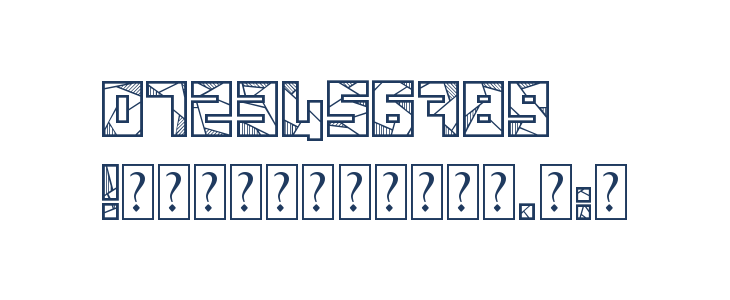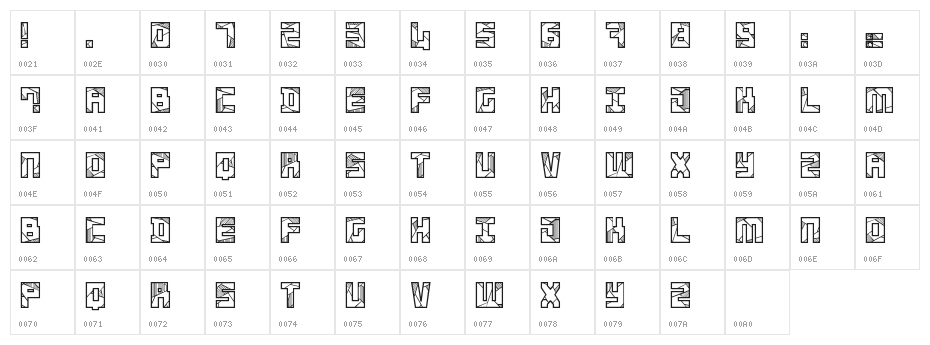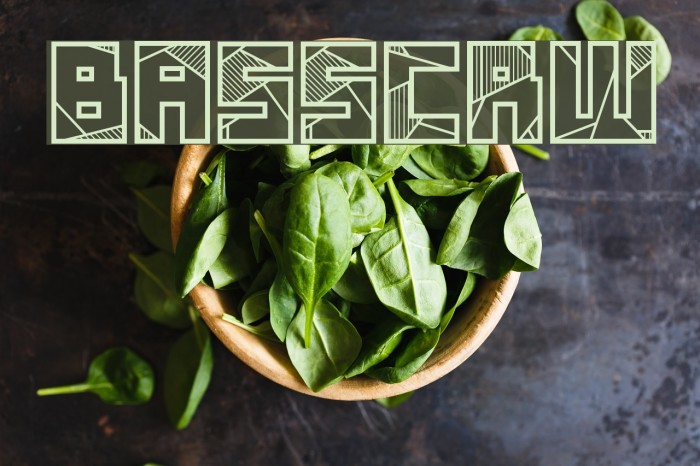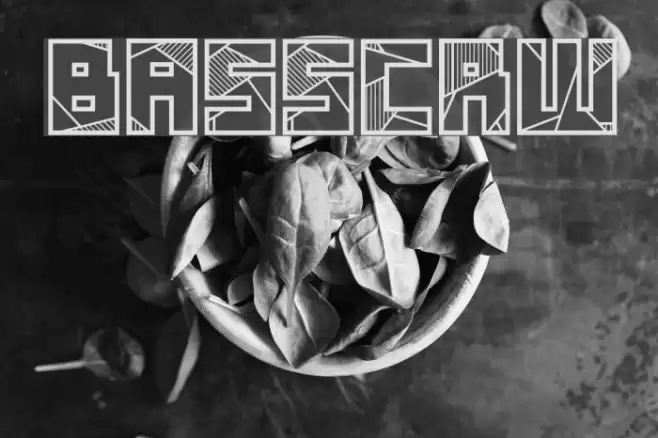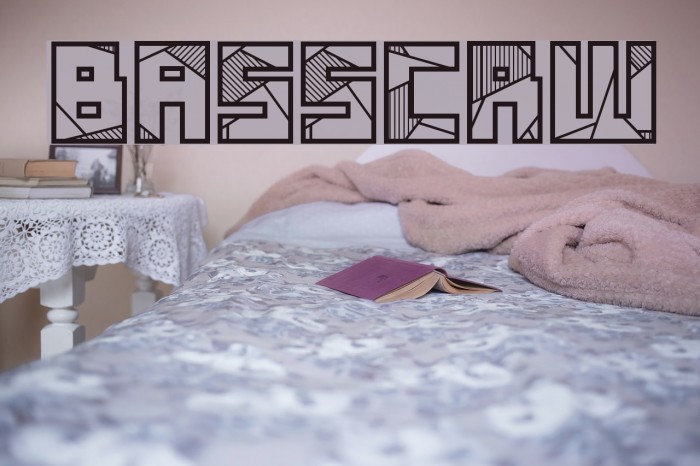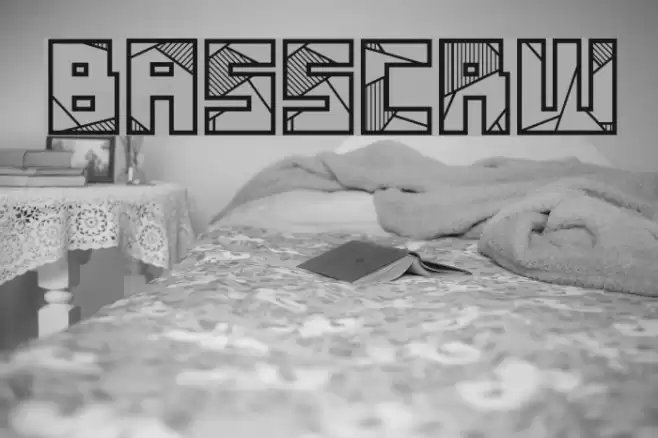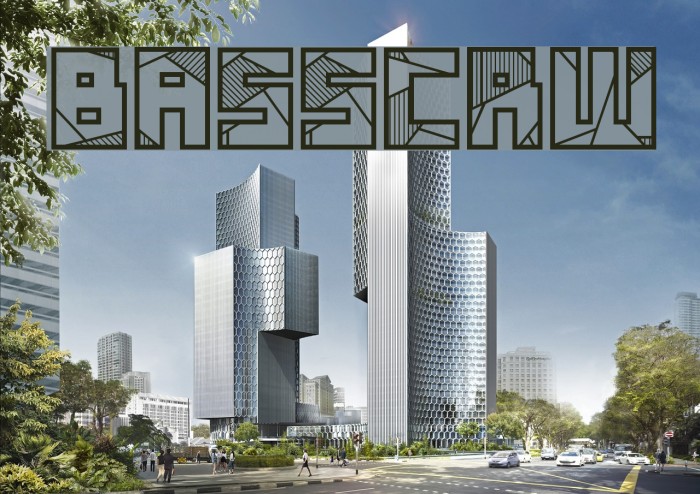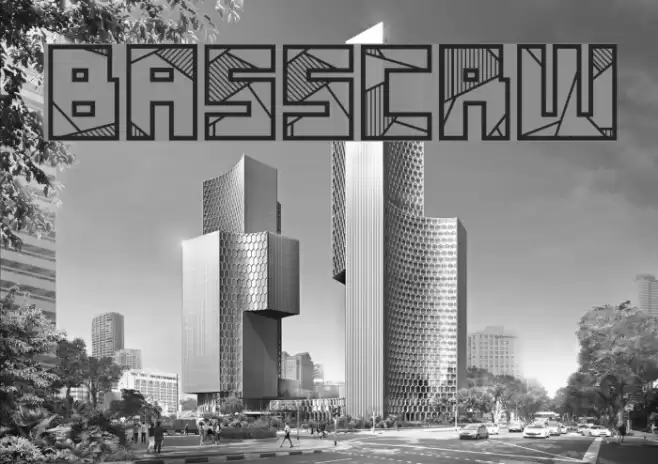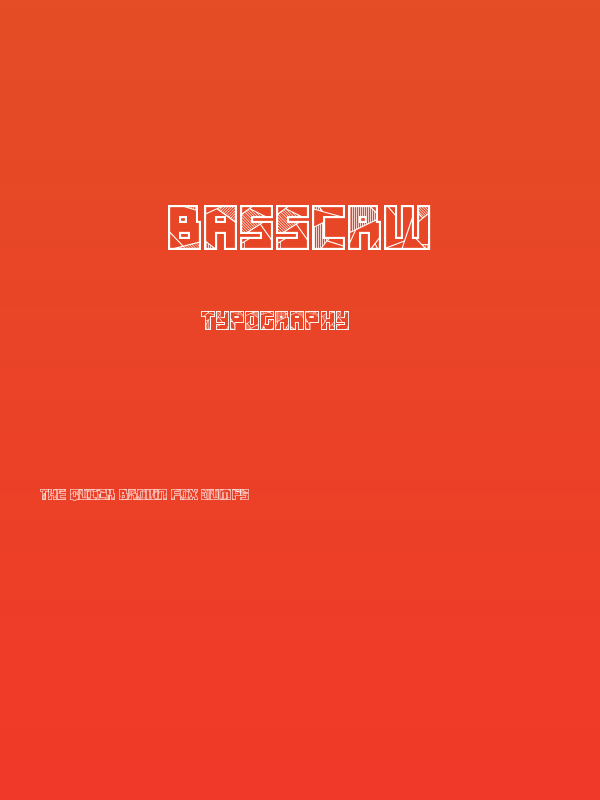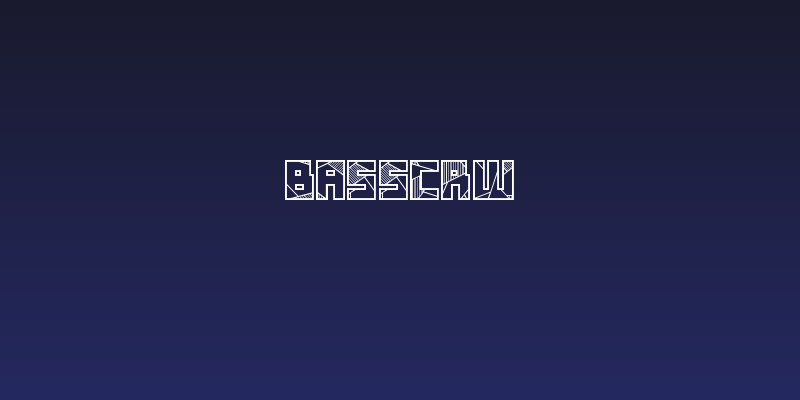
Basscrw Font
Basscrw Description
This font features a bold, geometric design with intricate line patterns filling each character. The letters are constructed with a blocky, angular style, creating a sense of depth and complexity. The internal line work varies between diagonal and horizontal, adding texture and visual interest. Each character is enclosed within a solid outline, enhancing its bold appearance. The font maintains a consistent structure across uppercase, lowercase, numbers, and special characters, making it visually cohesive. Its unique design is eye-catching and suitable for projects that require a strong visual impact.
| Proposed Projects | Ideal for posters, album covers, branding, and any project needing a striking, modern aesthetic. |